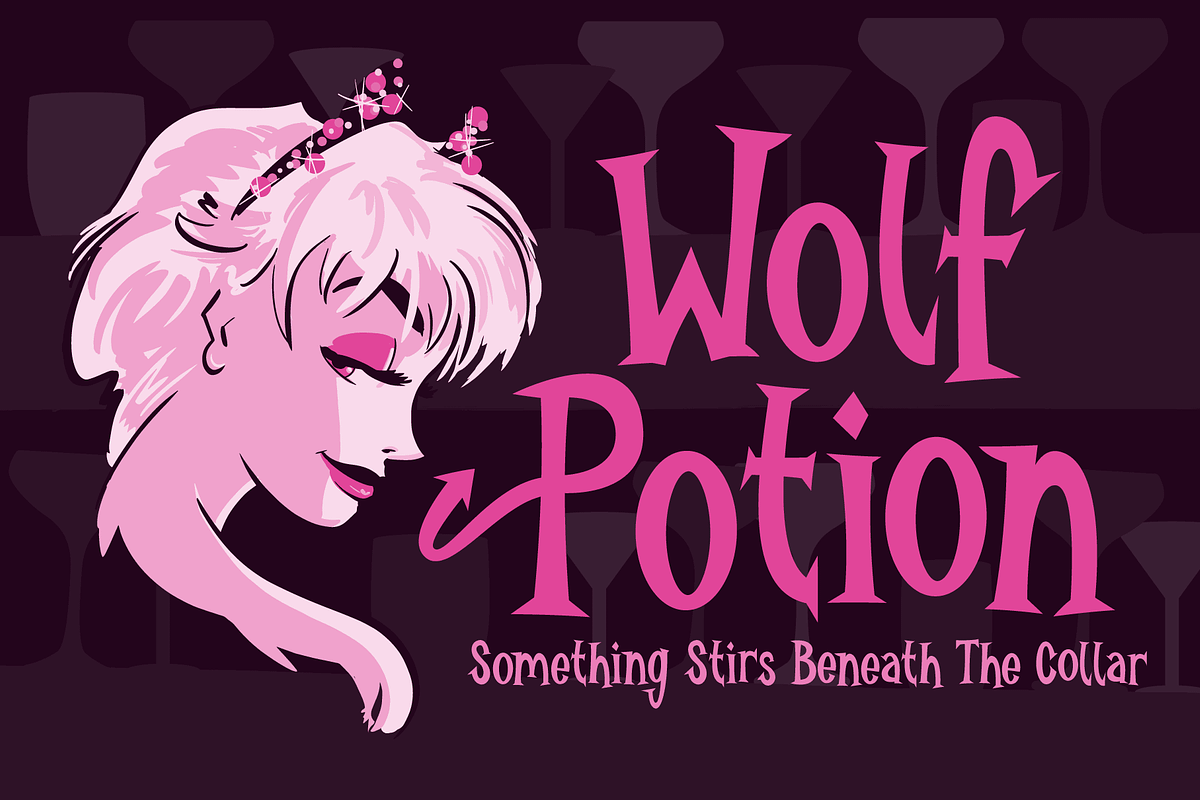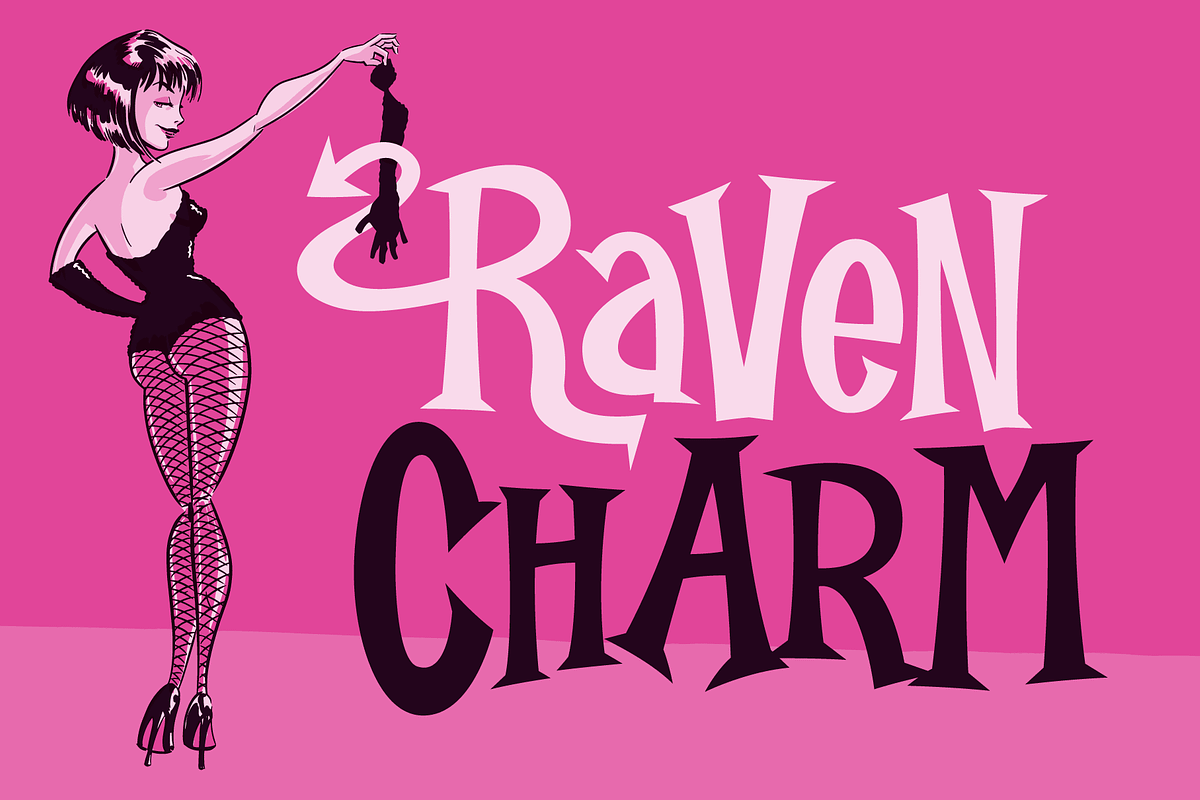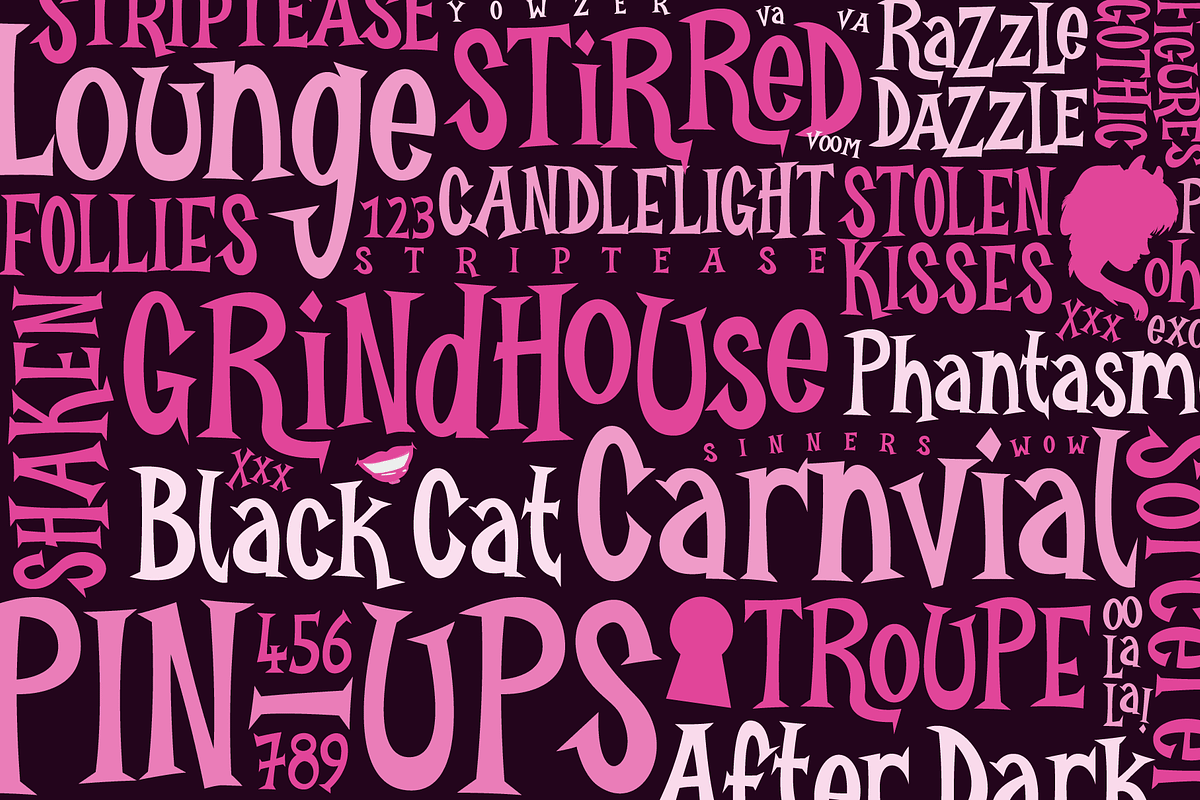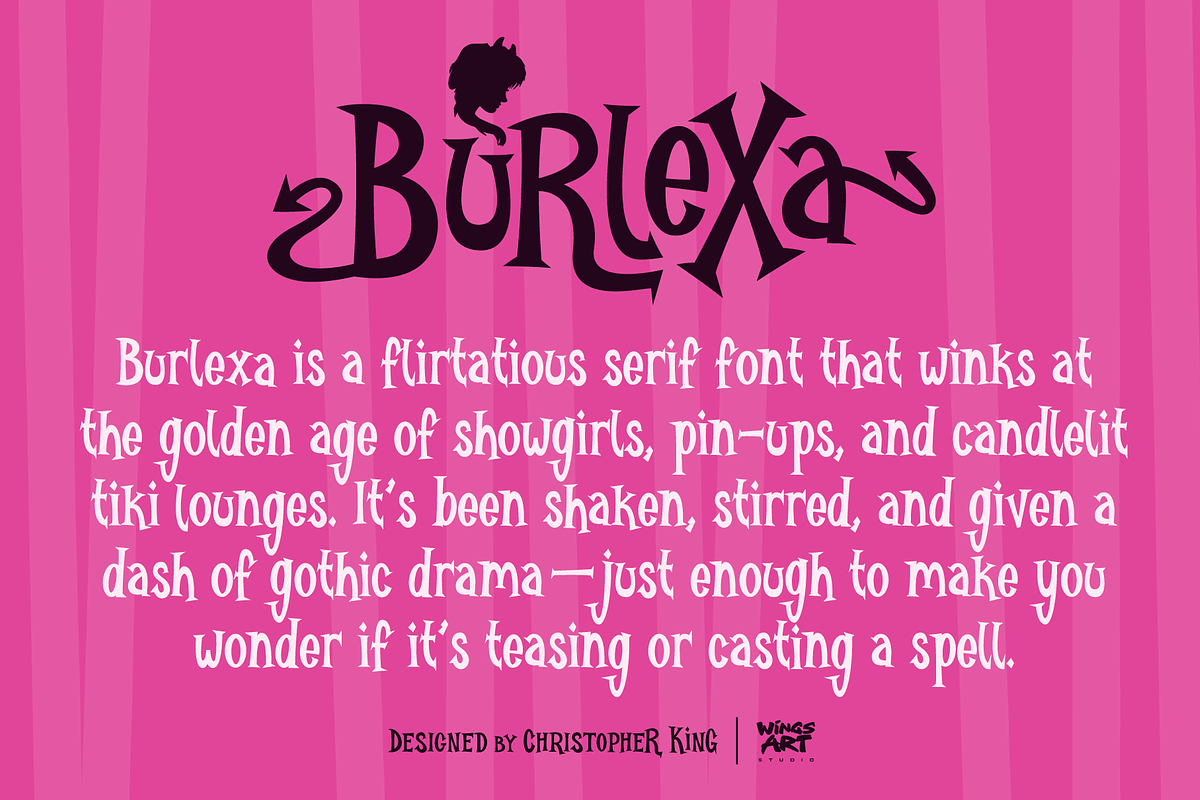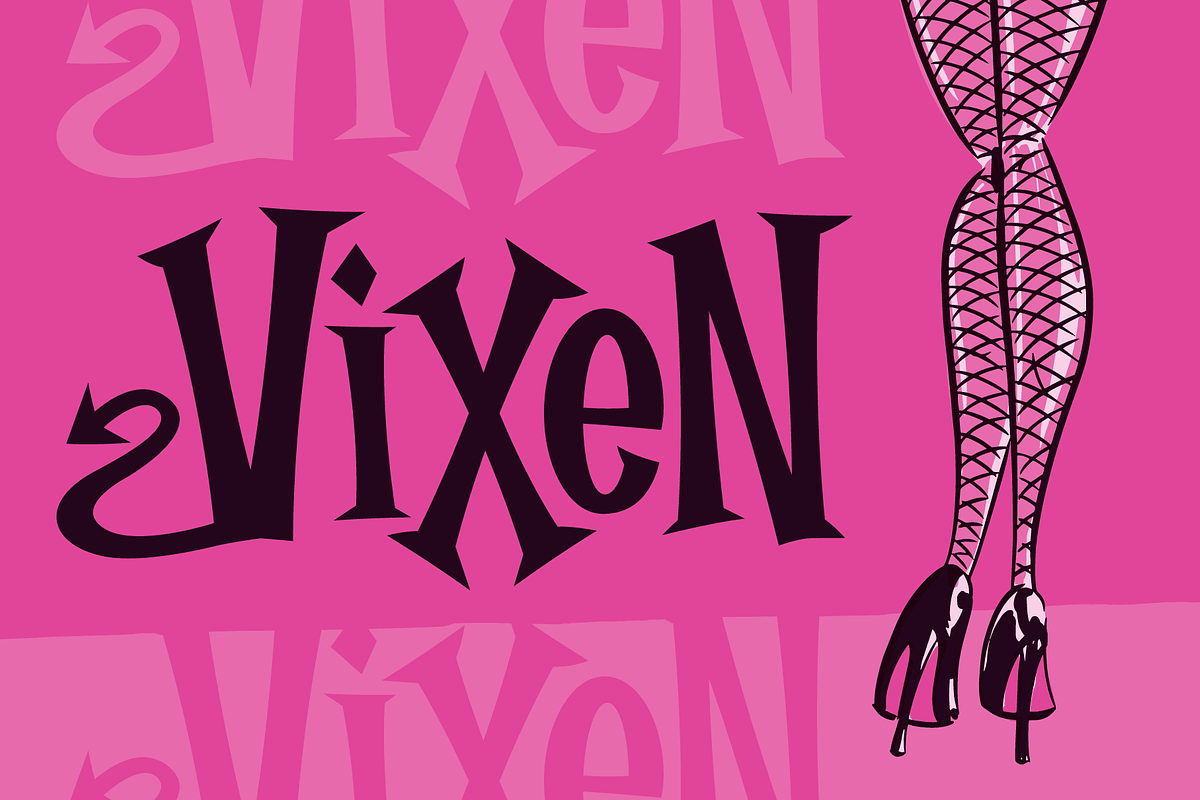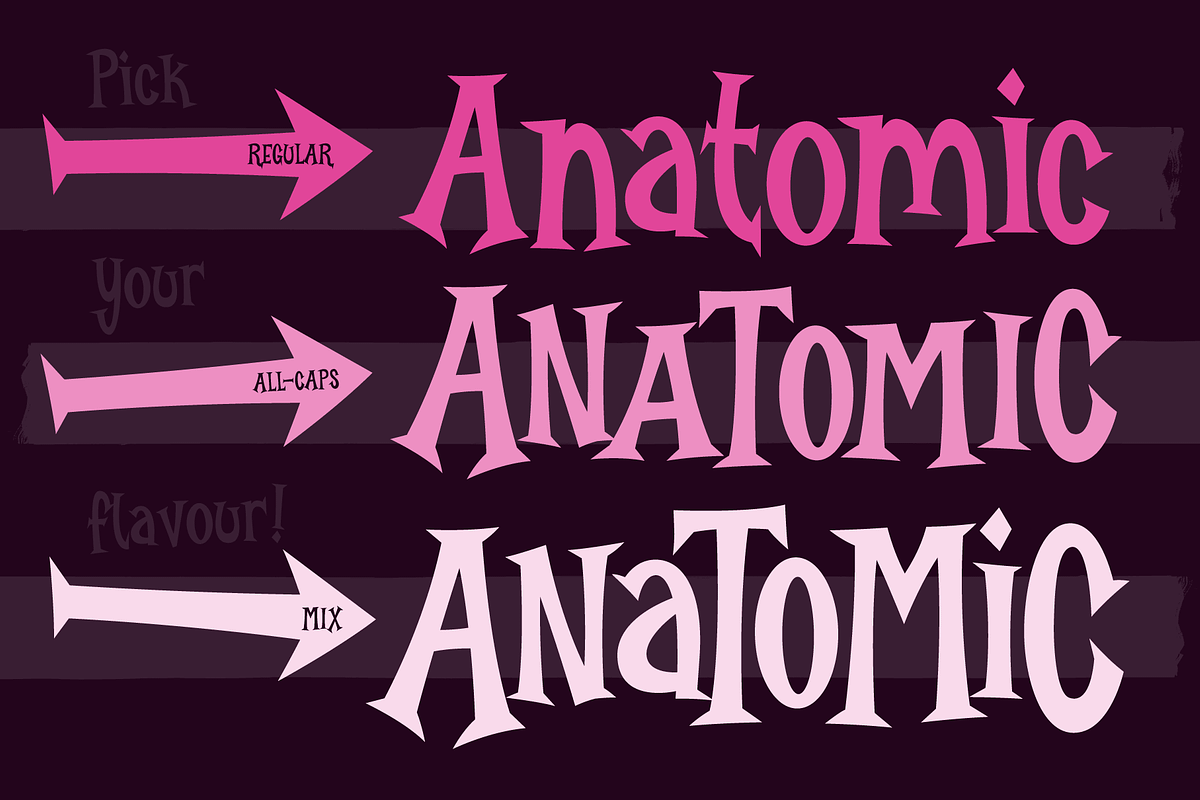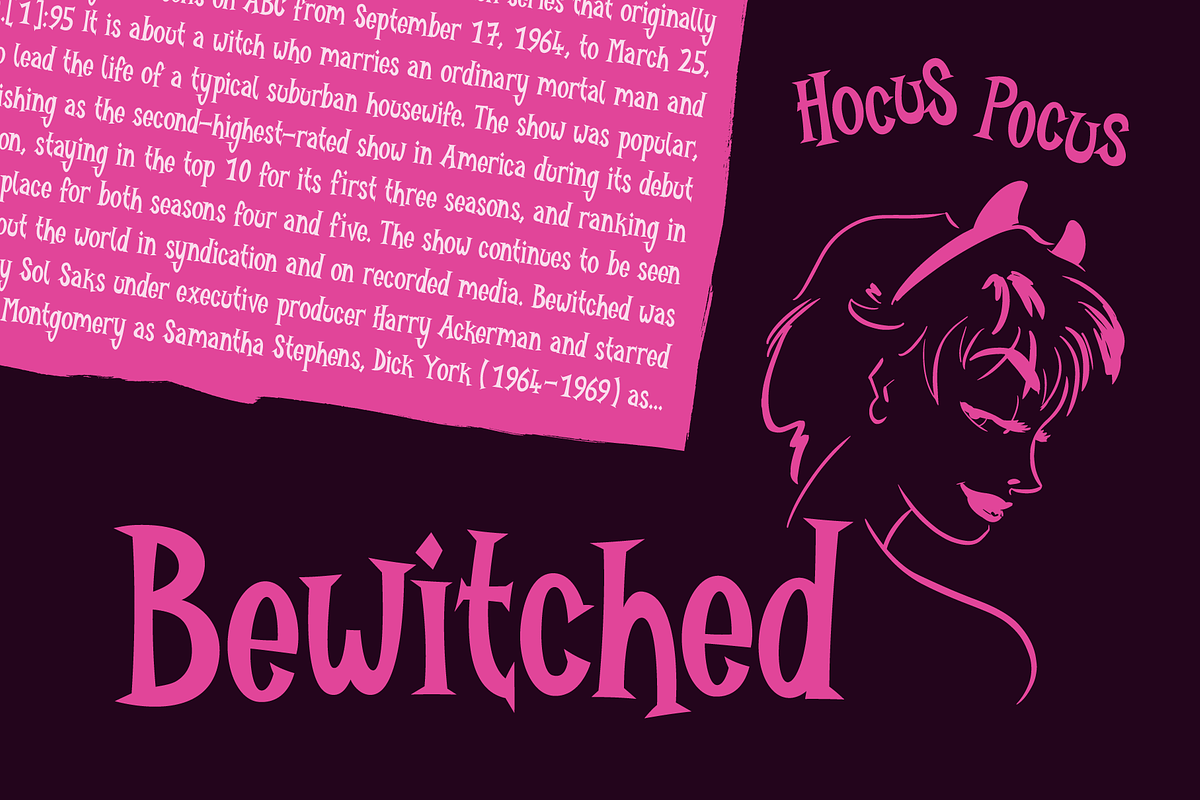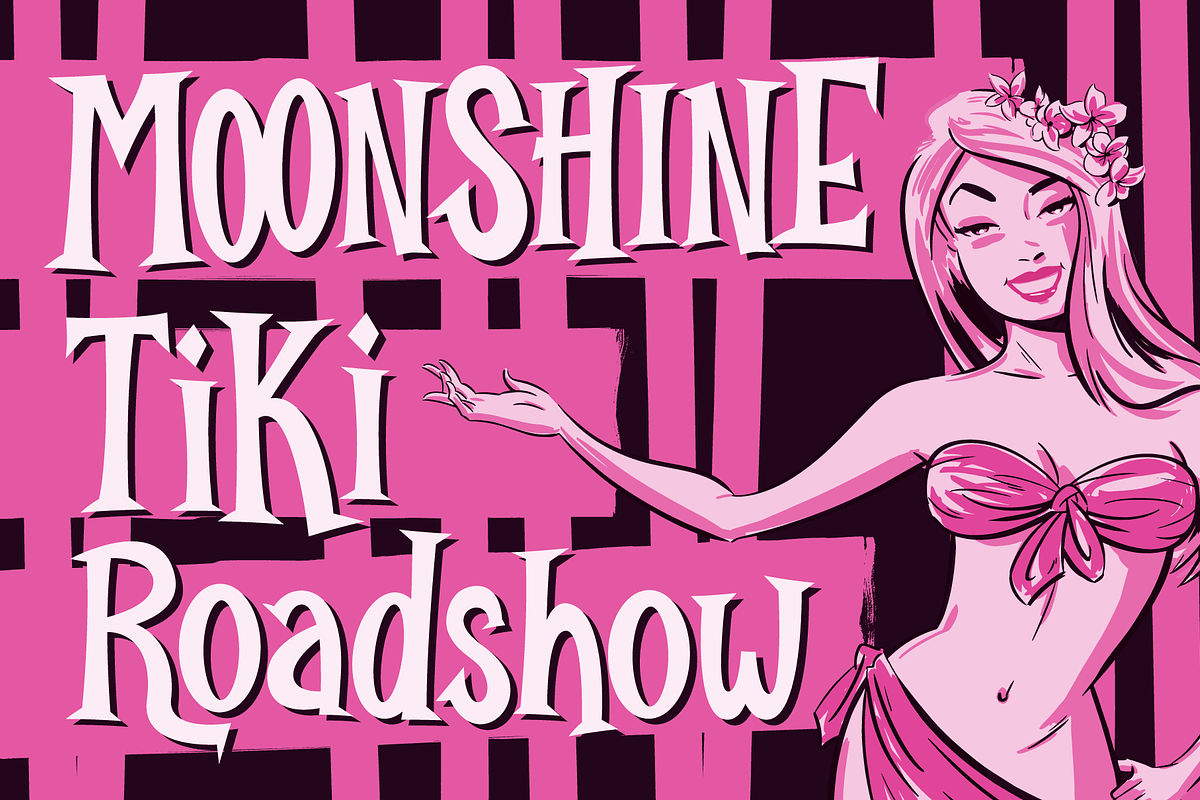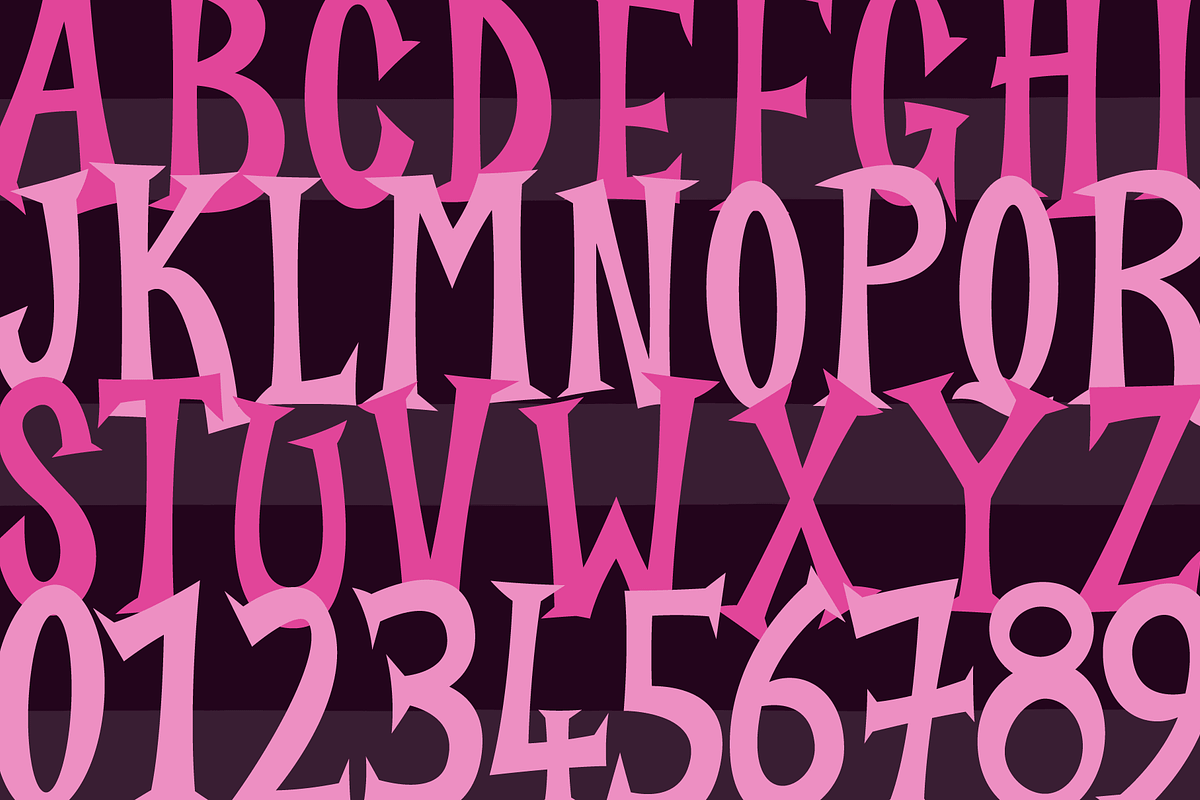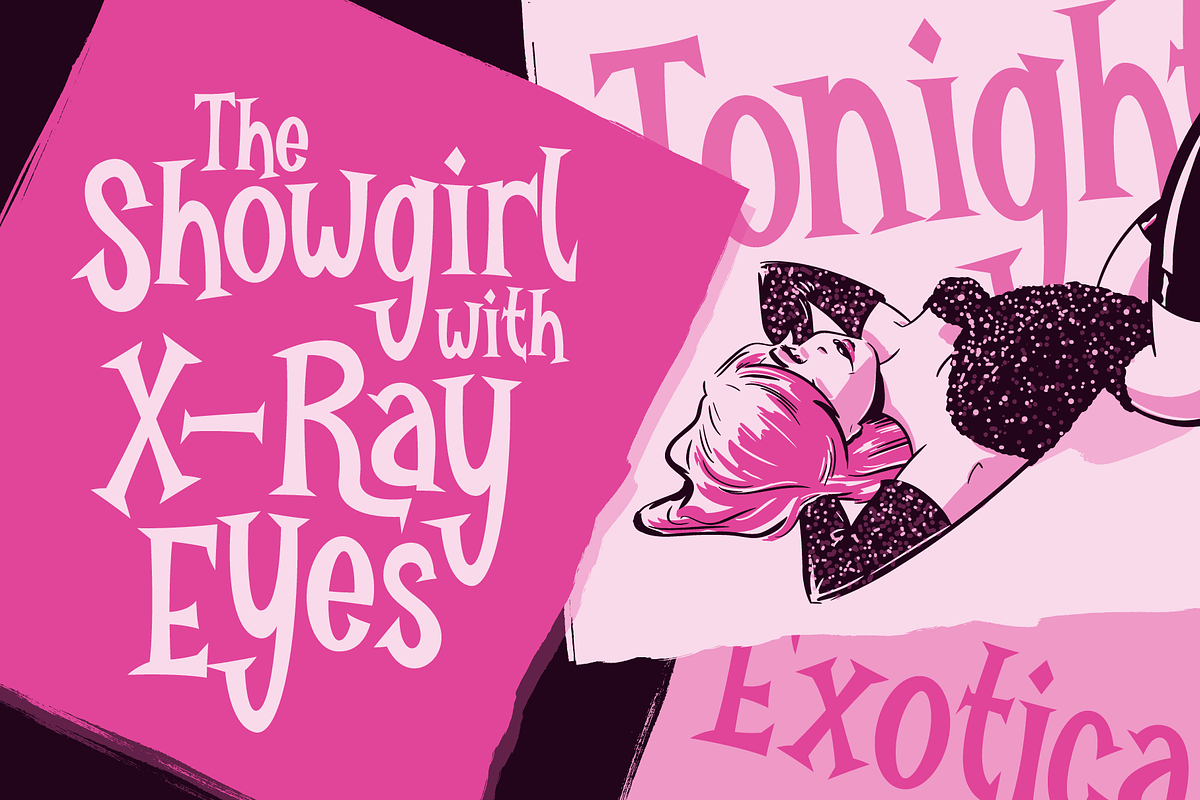
Burlexa: A Devilishly Good Serif Fon
Burlexa is a flirtatious serif font that winks at the golden age of showgirls, pin-ups, and candlelit tiki lounges. It’s been shaken, stirred, and given a dash of gothic drama — just enough to make you wonder if it’s teasing or casting a spell.
It appeals to a nostalgic 1950s charm, of TV sitcoms playing to a bewitched studio audience, Vegas shows hosted by the Rat Pack, and cocktails set against exotic soundtracks. It's equal parts devil and delight, naughty and nice.
The Burlexa font family includes a double act of the Regular style (upper, lowercase, numerals, and multi-language support as standard) and the All-caps alternative, which gives the font an edgier look. Also included are a host of custom ligatures and decorative capitals featuring preset versions of the devilish tails — more about those below.
Decorative Tails: I've included preset versions of all capitals featuring what I'll call the 'devil tales'. You'll find these either as pop-up stylistic options or by selecting them directly from the glyphs menu in your program of choice. But if you want to get into the details and try something different, I've also included a range of separate tails that you can add yourself to the standard capitals. You'll find these hidden as alternative characters in all the numerals, or in your glyphs menu. Enjoy!